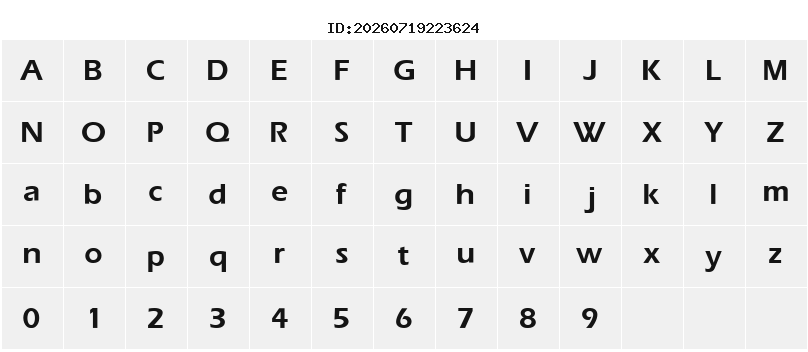
About Eras-Black.ttf
Eras-Black.ttf is a modern, elegant sans-serif font designed for ultimate readability and visual harmony. Perfect for branding, headlines, web design, and print materials.